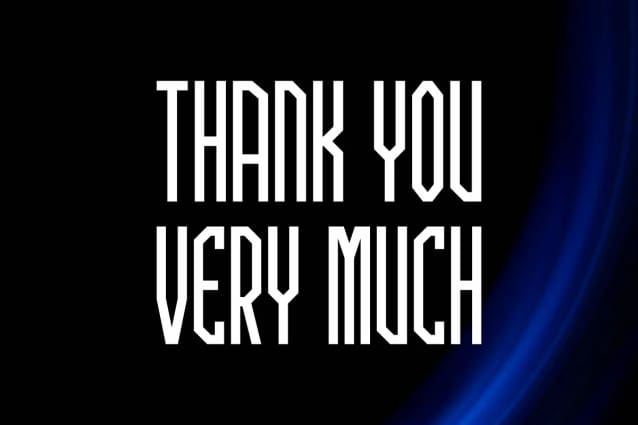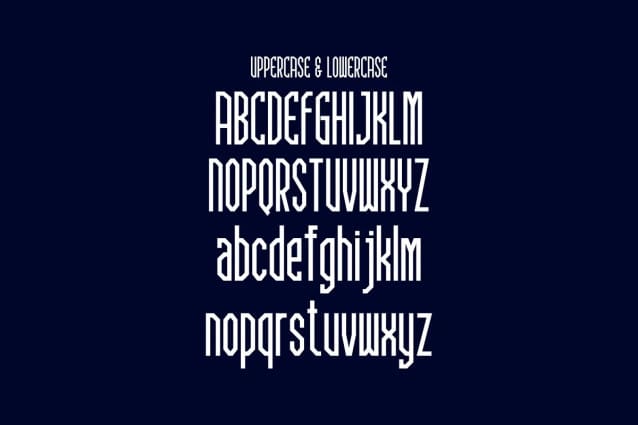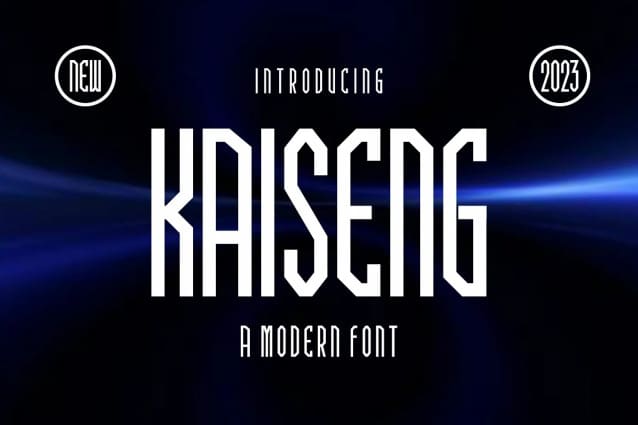
Kaiseng Font
Kaiseng Font, perfectly suited on print/screen. it’s perfect for Branding, name card, poster, logo, magazine, cover, banner, t-shirt and headers, or even large-scale artwork.